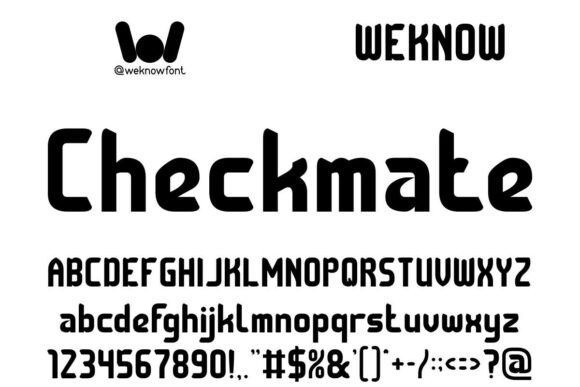
Introducing Checkmate Font: Elevate Your Designs with a Unique Blend of Modern Gothic and Sans Serif Styles
In the realm of typography, fonts play a pivotal role in shaping the visual identity of a brand, product, or creative project. With numerous font styles available, finding the perfect one that resonates with your artistic vision can be a daunting task. However, if you’re looking to infuse a contemporary charm into your designs, look no further than Checkmate Font. This distinct blend of modern gothic and sans serif styles offers a versatile yet fancy display font that can elevate your creative endeavors to new heights.
The Distinctive Features of Checkmate Font
Checkmate Font boasts a unique blend of modern gothic and sans serif styles, making it an exceptional choice for designers seeking to create visually striking designs. Its distinctive features include:
- Modern Gothic Flair: Checkmate’s modern gothic undertones lend an air of mystery and sophistication to your designs, making it perfect for projects that require a touch of elegance.
- Sans Serif Simplicity: The sans serif elements of Checkmate ensure that your designs remain clean, crisp, and easily legible, even at smaller font sizes.
- Versatility: Checkmate’s versatility allows it to be used across a wide range of design applications, from logos and branding to posters, music, and digital media.
Endless Possibilities for Creative Expression
Checkmate Font offers endless possibilities for creative expression, making it an ideal choice for designers, artists, and brands seeking to make a lasting impression. Some of the many ways you can use Checkmate include:
- Logo Design: Create stunning logos and logotypes that etch an instant impression on your audience.
- Branding and Corporate Identity: Shape unmatchable corporate and brand identities that reflect your values and personality.
- Apparel Design: Add a touch of finesse to your apparel collections with Checkmate’s elegant and sophisticated font style.
- Print Media: Bring your posters, music, movies, games, magazines, and books to life with Checkmate’s captivating allure.
- Digital Media: Elevate your YouTube channels, Instagram posts, and websites with Checkmate’s unparalleled aesthetic.
Unleash Your Creativity with Checkmate
Checkmate Font is more than just a font – it’s a creative tool that allows you to narrate your story with conviction and elegance. With Checkmate, you can:
- Experiment with Typography: Play with different font sizes, styles, and arrangements to create visually striking designs.
- Push Boundaries: Use Checkmate to create unique and captivating designs that push the boundaries of typography and visual expression.
- Elevate Your Brand: Establish a strong visual identity for your brand or business with Checkmate’s distinctive and sophisticated font style.
Why Choose Checkmate Font?
With so many font styles available, why choose Checkmate Font? Here are just a few reasons why Checkmate stands out from the rest:
- Unique Blend of Styles: Checkmate’s blend of modern gothic and sans serif styles makes it a truly unique and distinctive font.
- Versatility: Checkmate can be used across a wide range of design applications, making it a valuable addition to any designer’s toolkit.
- Elegance and Sophistication: Checkmate’s elegant and sophisticated font style lends an air of refinement and luxury to your designs.
In conclusion, Checkmate Font is a versatile and elegant font style that offers endless possibilities for creative expression. Its unique blend of modern gothic and sans serif styles makes it a standout choice for designers seeking to infuse a contemporary charm into their designs. Whether you’re looking to create stunning logos, shape corporate identities, or add a touch of finesse to your apparel collections, Checkmate Font is the perfect choice. Unleash your creativity with Checkmate and let your design projects narrate your story with conviction and elegance.
- What is Checkmate Font?: Checkmate Font is a distinct blend of modern gothic and sans serif styles, offering a versatile yet fancy display font.
- What design applications can I use Checkmate Font for?: Checkmate Font can be used for a wide range of design applications, including logos, branding, apparel design, print media, and digital media.
- Is Checkmate Font easy to read?: Yes, Checkmate Font is designed to be clean and legible, even at smaller font sizes.